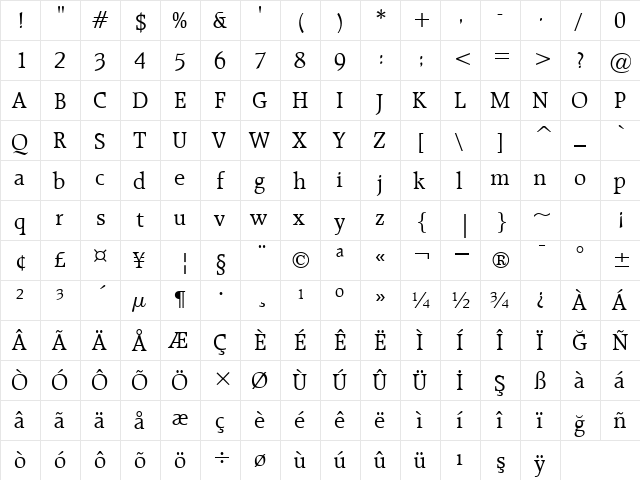
00605 Regular
00605 takes a measured approach to typography — its balanced proportions and neutral character make it a reliable workhorse for both digital and print work.